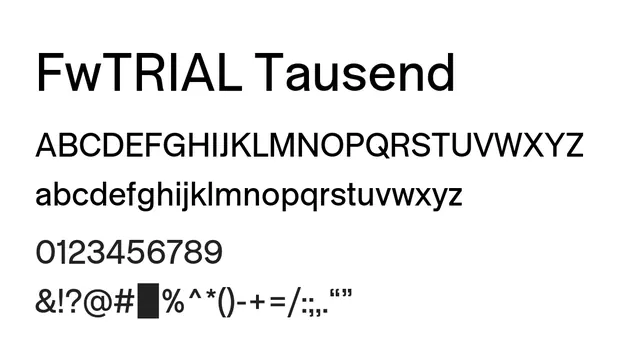
FwTRIAL Tausend
FwTRIAL Tausend, modern, clean
A comprehensive geometric sans-serif family spanning Thin to Black with strong modern sensibilities and exceptional flexibility across scales.
Outstanding for full typographic systems where consistent design language is needed across body text, UI, and headlines. The extensive weight range enables sophisticated typographic hierarchy.
Pairs seamlessly with itself across weights for monochromatic layouts, or with a complementary serif like Lora for hybrid editorial applications.